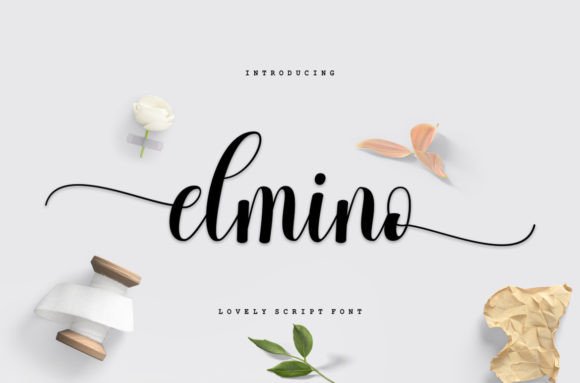
Introducing Elmino Script, a font family that exudes charm and elegance, transporting your creative visions into captivating realities. With its distinctive handwritten style, Elmino beautifully adorns wedding invitations, thank-you notes, motivational quotes, and greeting cards, adding a touch of sophistication to any design.
Crafted with artistry and precision by Cut Story, Elmino captivates hearts with its graceful curves and delicate strokes. Its intricate details bring a sense of individuality and authenticity to your projects, enchanting your audience with its timeless appeal.
Embrace the versatility of Elmino Script, and witness the transformation of your designs into masterpieces. Its fluidity lends itself effortlessly to logos and business cards, leaving an unforgettable impression upon your clientele.
Let Elmino Script be your creative partner, guiding you through a journey of artistic expression. Its intuitive nature seamlessly complements any project, inviting you to explore the boundaries of your imagination.
Indulge in the allure of Elmino Script, and elevate your designs to new heights. Experience the joy of creating with a font that truly captures the essence of elegance and sophistication.